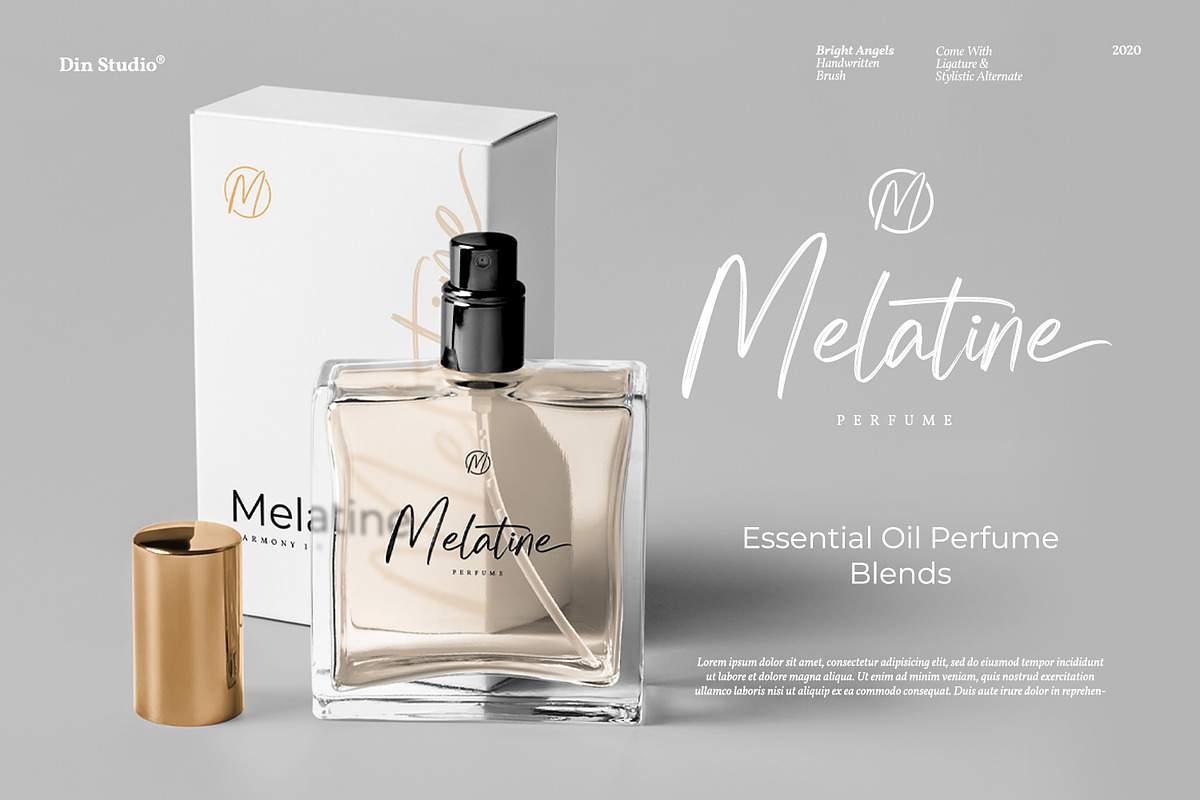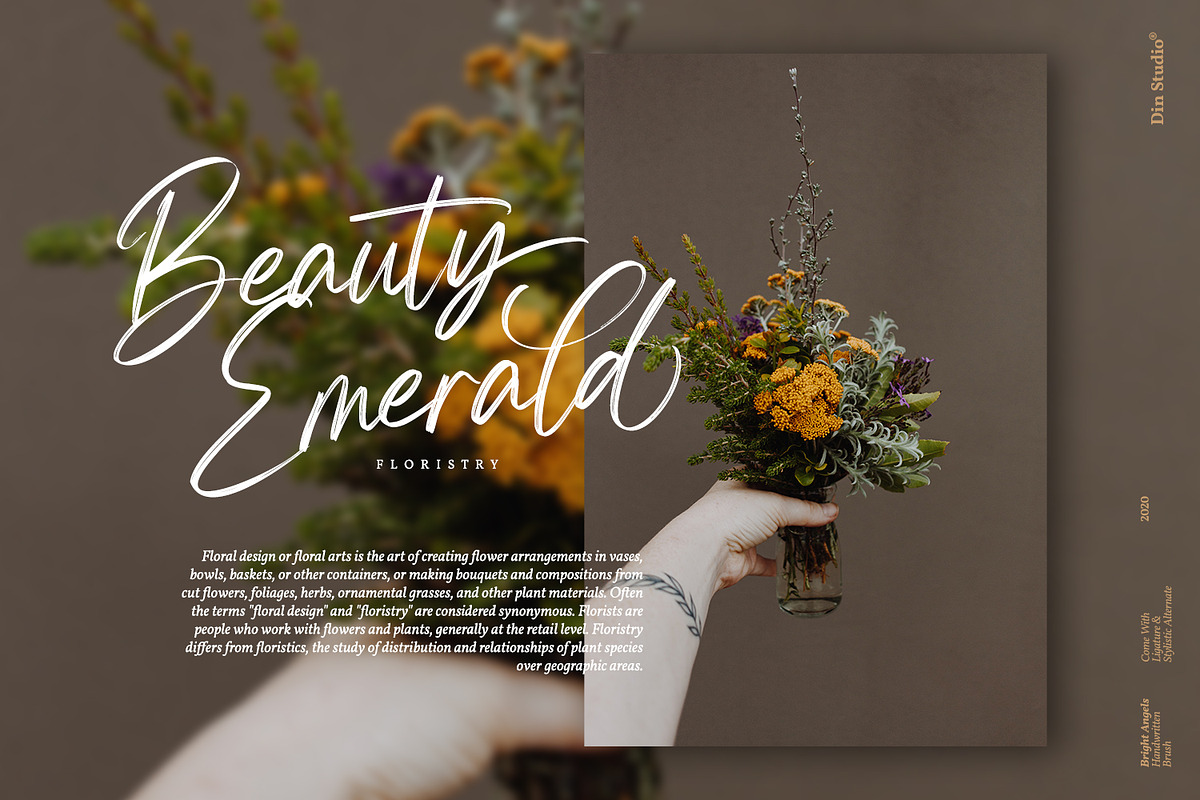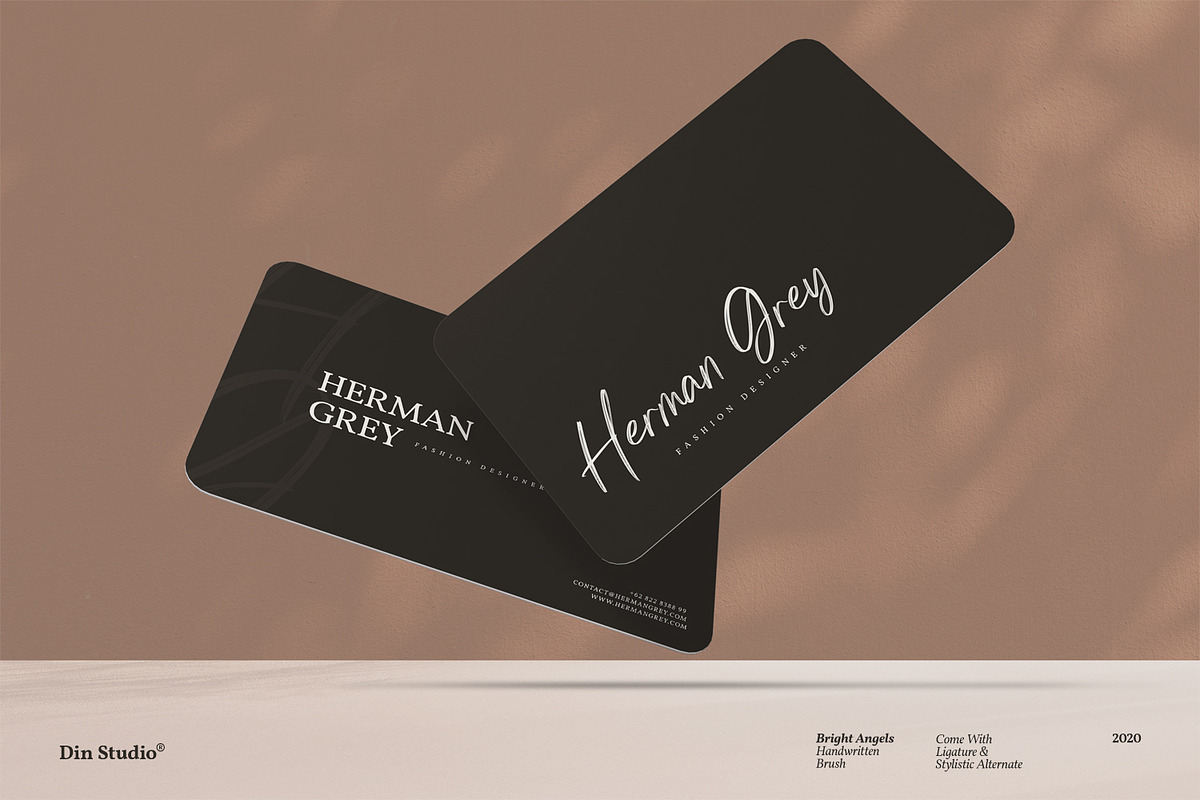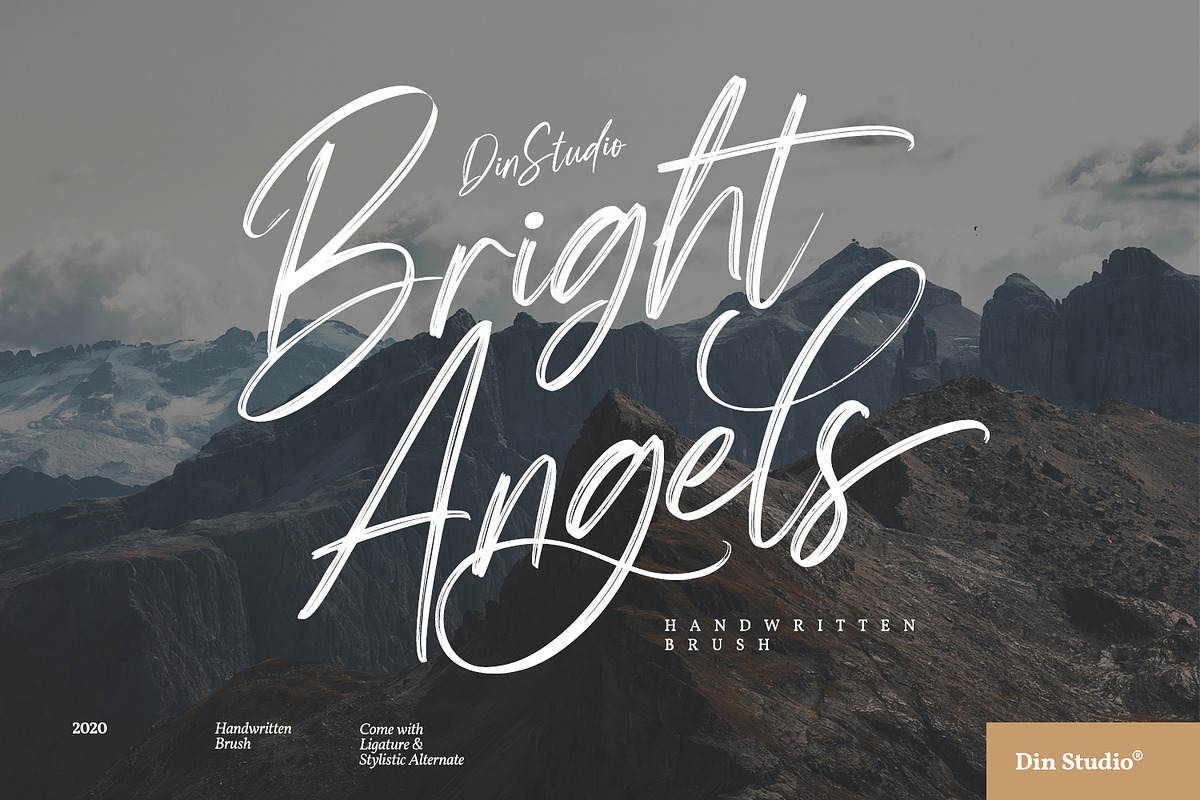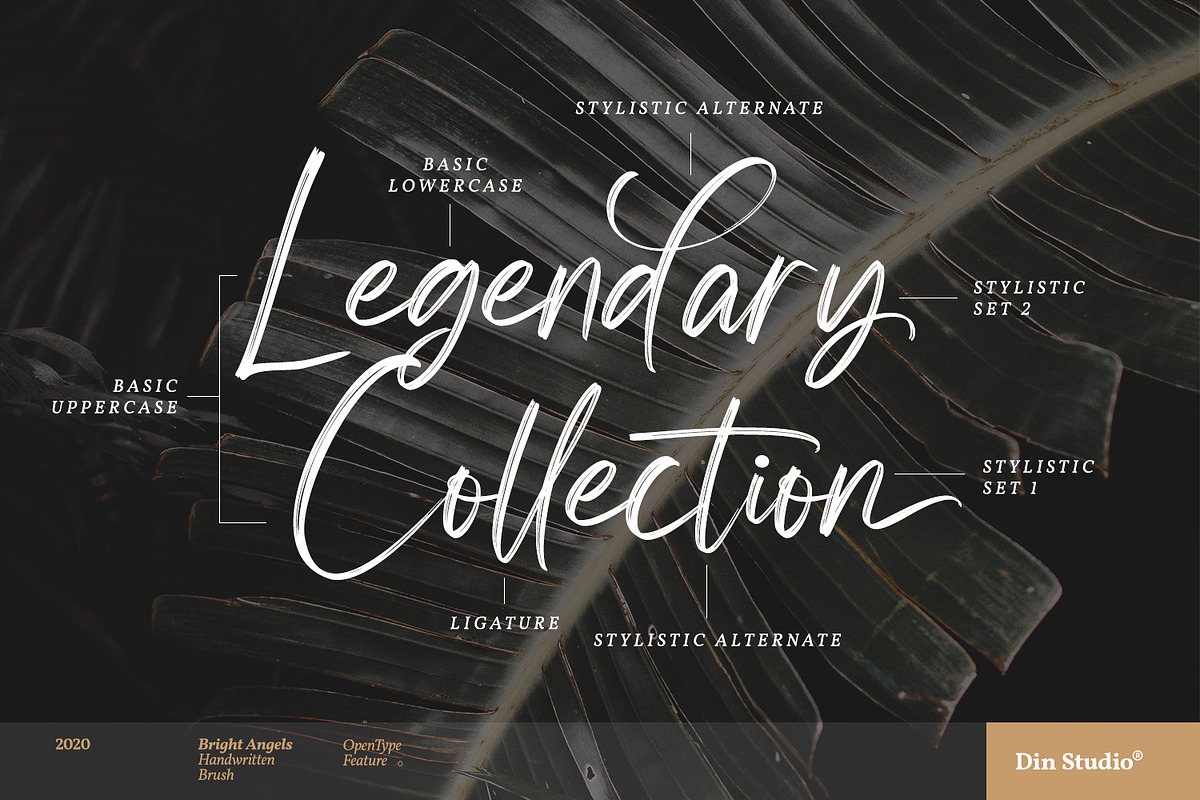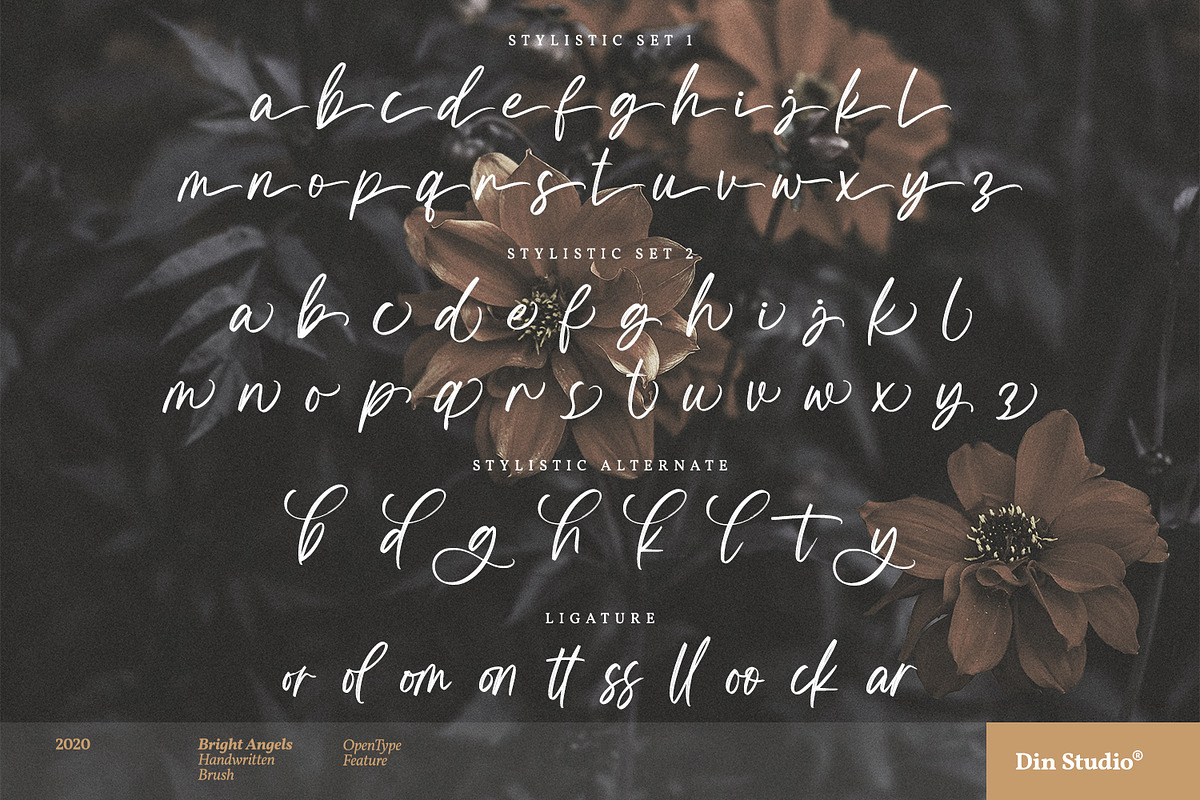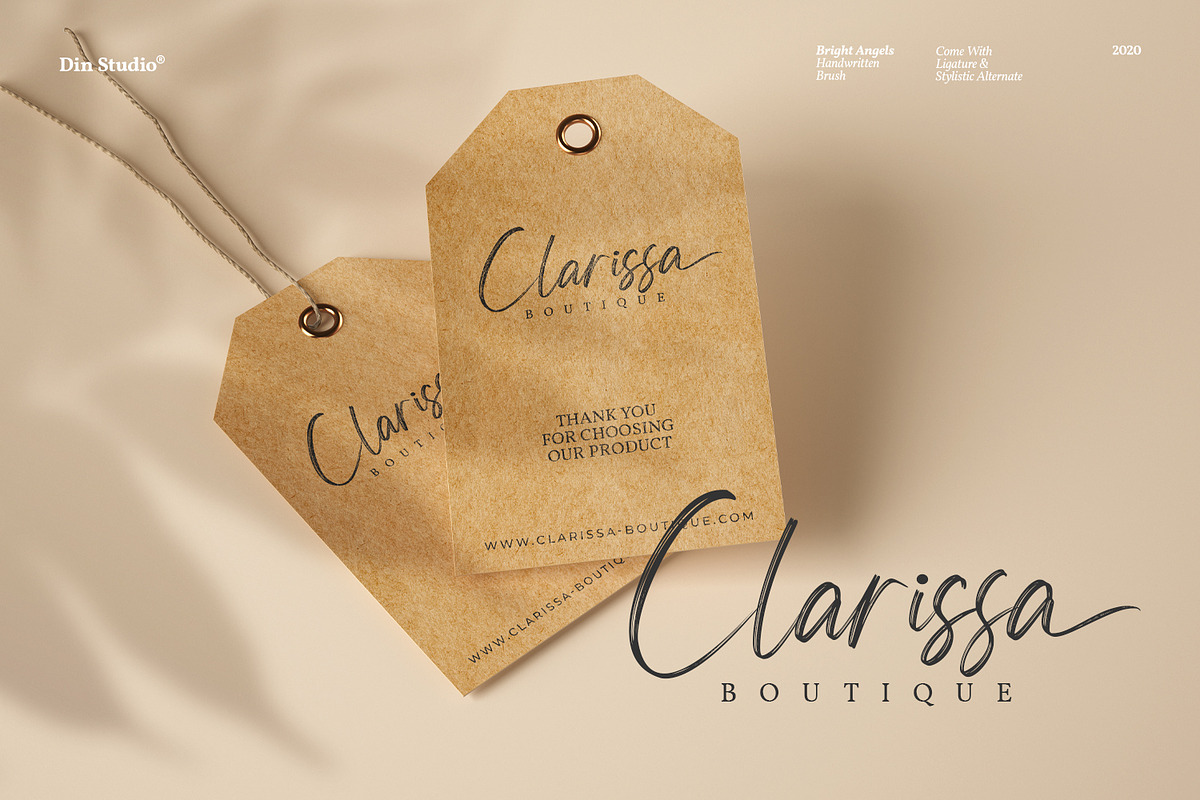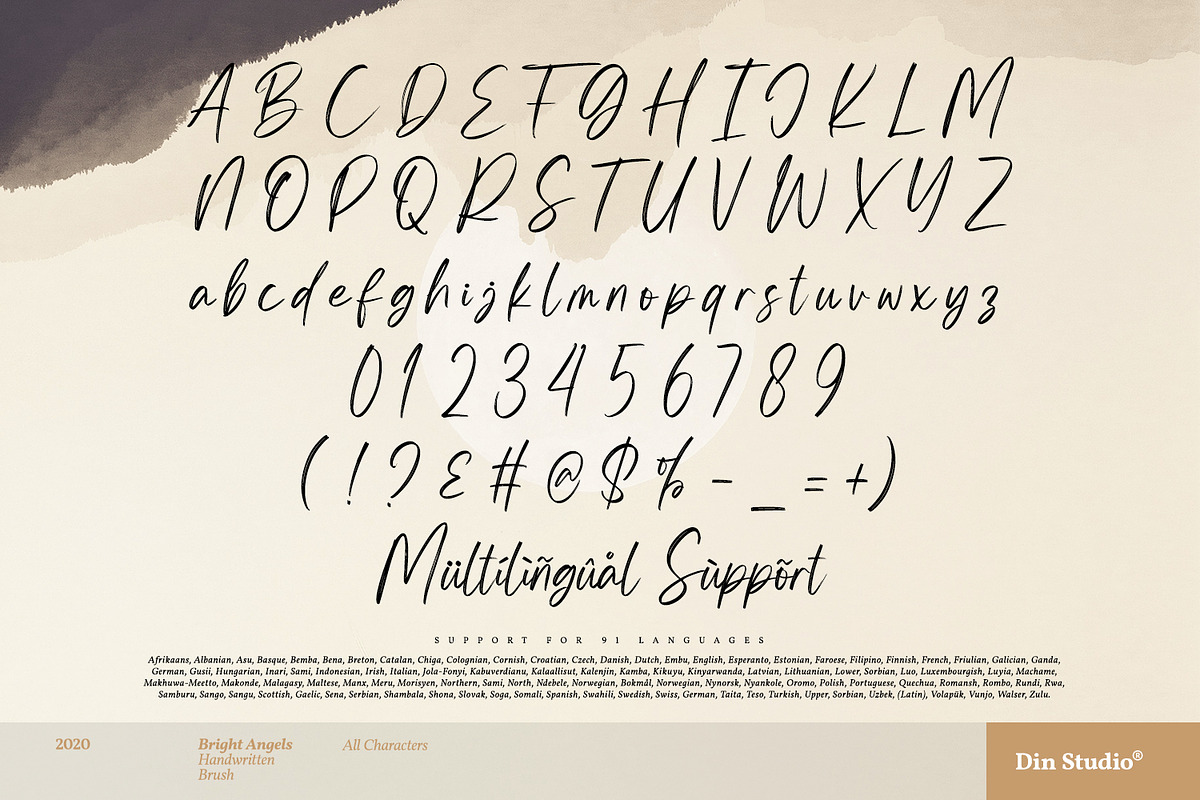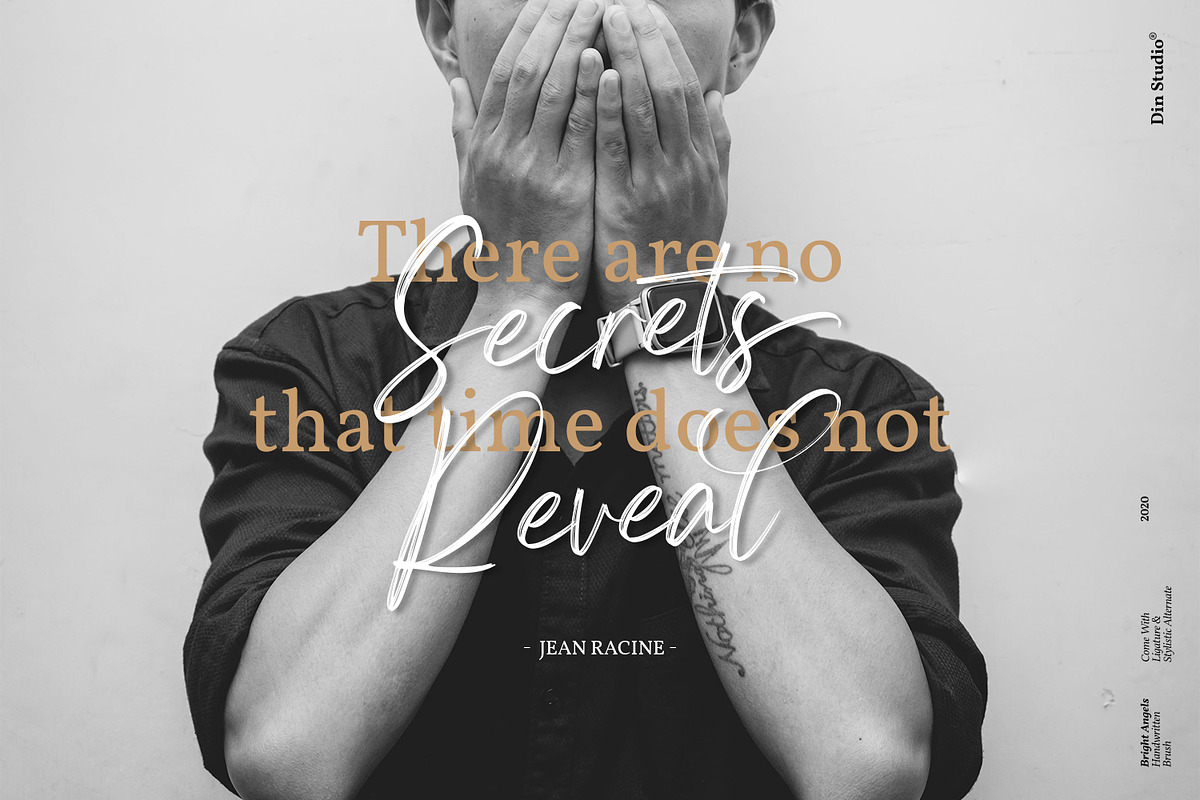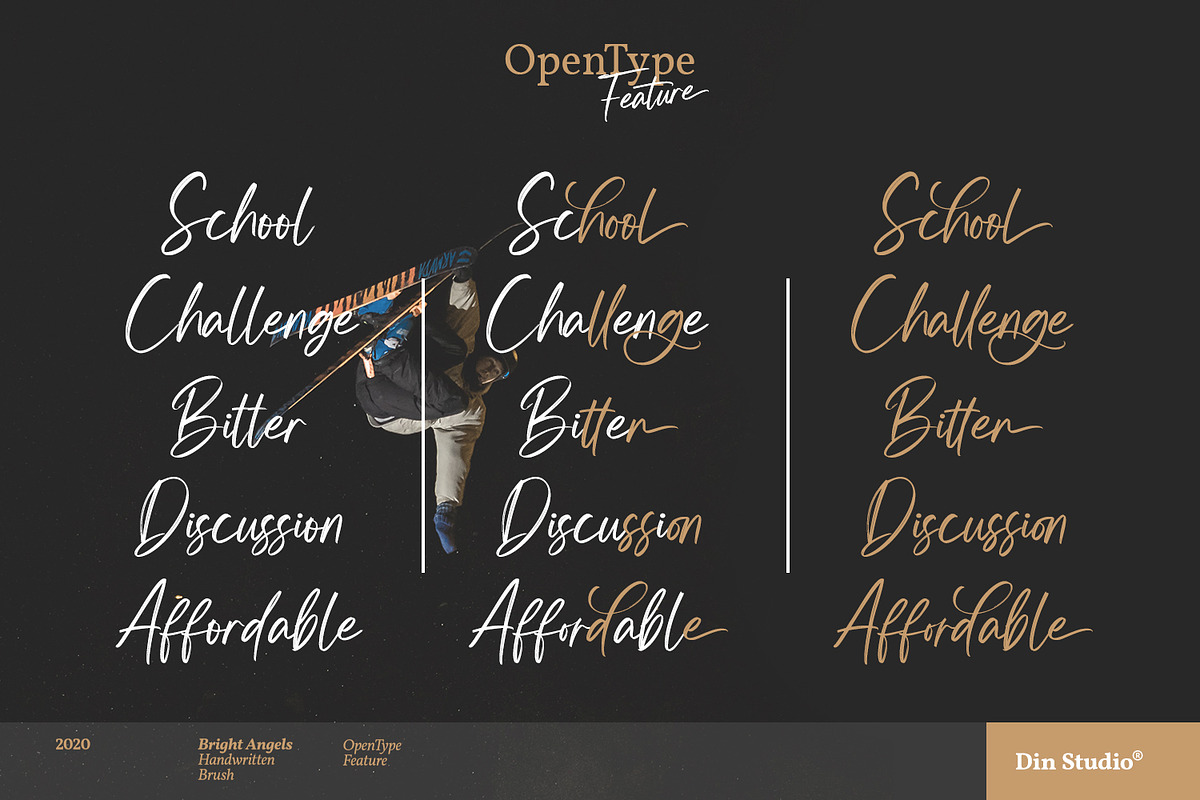
Bright Angels
If you’re looking for a gorgeous, elegant, versatile font to captivate your audience and create the perfect contrast between your headings and body copy, then we’ve got the right font for you! Introducing Bright Angels – A Handwritten Font.
This handcrafted typeface combined with a brush style looks very elegant for loads of different projects and promotions. Bright Angels fits best for any design projects, such as posters, banners, logos, book covers, album covers, quotes, invitations, greeting cards, name cards, headings, printed products, merchandise, social media, etc.
- Beautiful Ligatures
- Stylistic Set